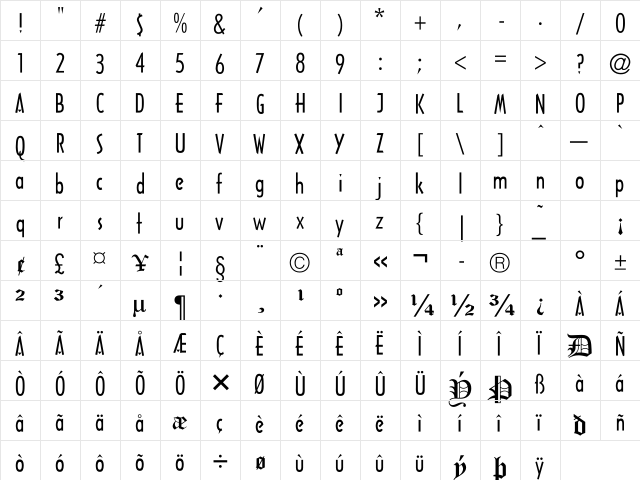
UKIJ Mejnuntal Regular Font Preview
UKIJ Mejnuntal Regular
UKIJ Mejnuntal Regular Font Details
| Foundry | Uyghur Computer Science Association |
| Designer | I.N.Elnuri |
Design Context for UKIJ Mejnuntal Typeface
UKIJ Mejnuntal takes a measured approach to typography — its balanced proportions and neutral character make it a reliable workhorse for both digital and print work.